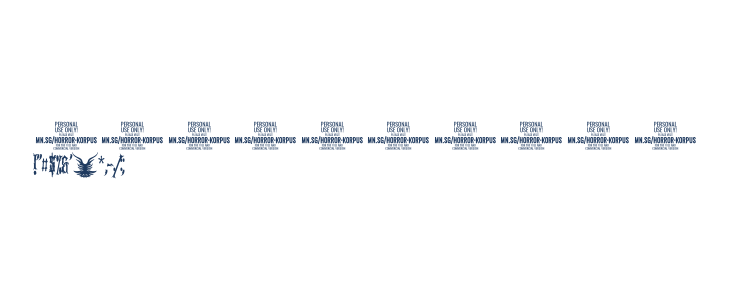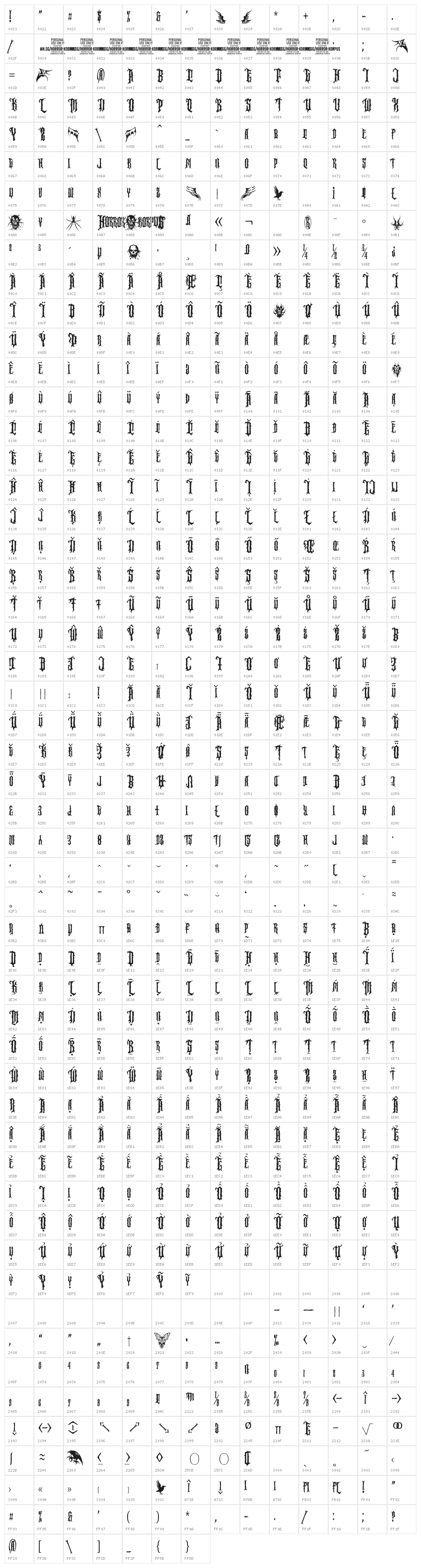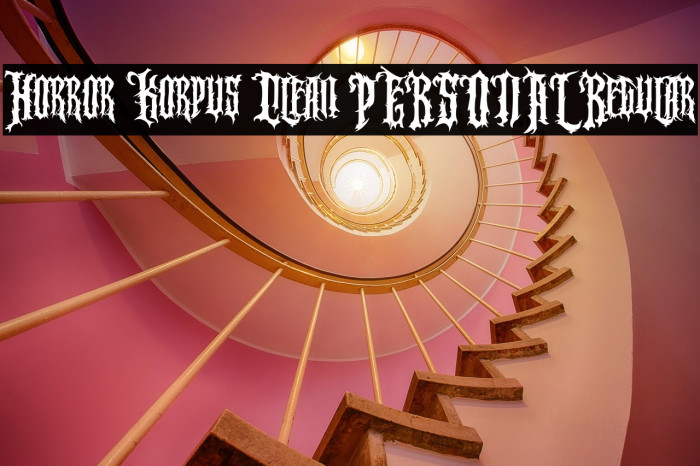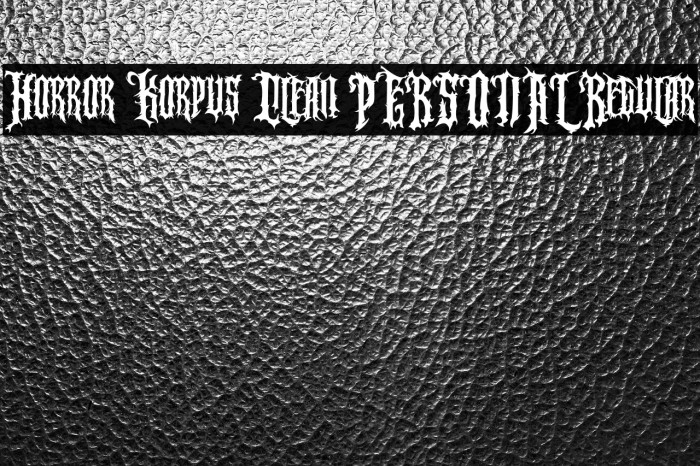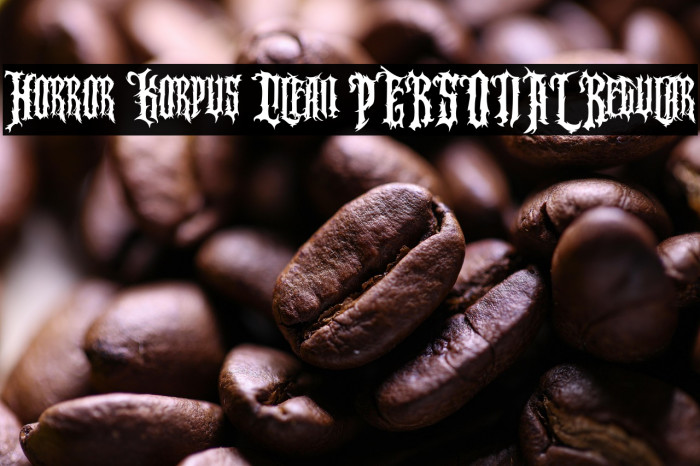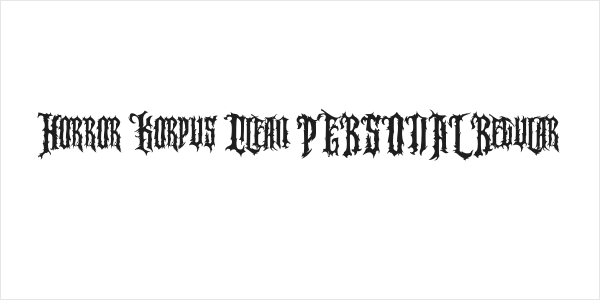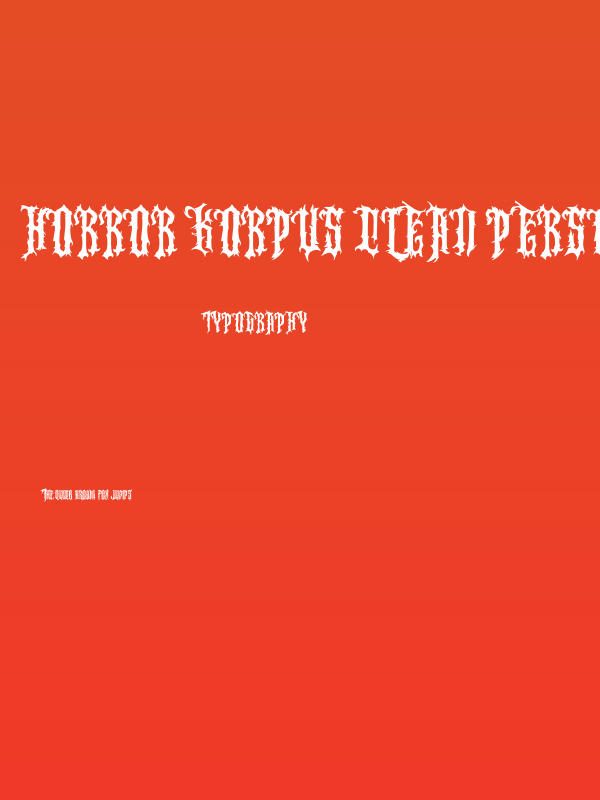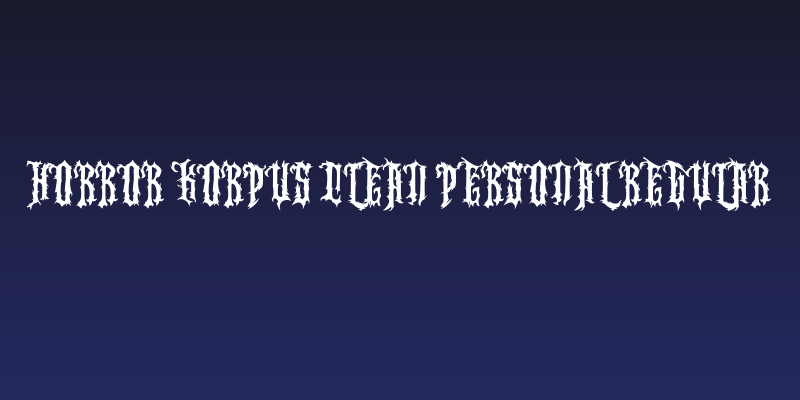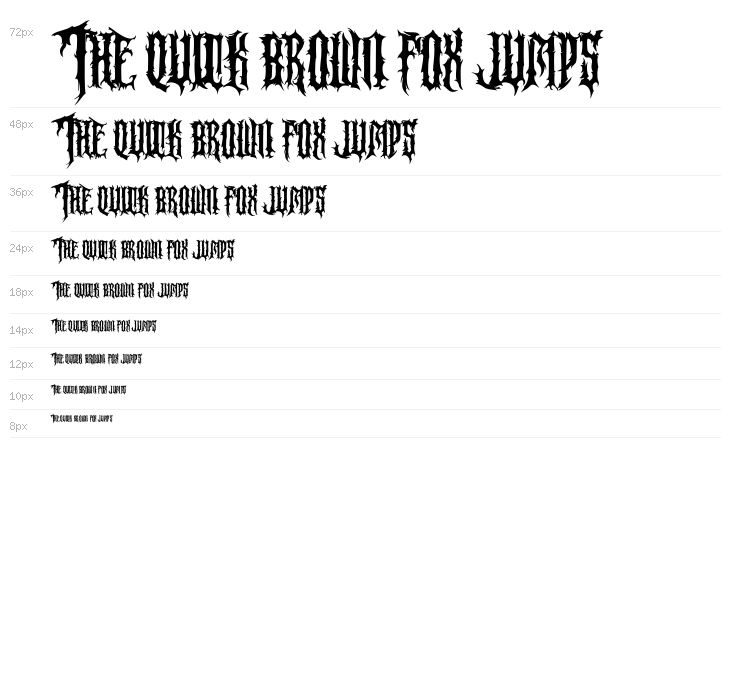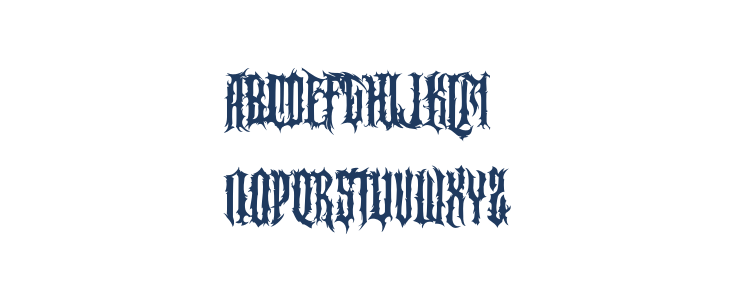
Horror Korpus Clean PERSONAL Regular Font
Horror Korpus Clean PERSONAL Regular Description
This font features a highly decorative and intricate design, reminiscent of gothic or horror themes. The characters are adorned with sharp, thorn-like extensions and irregular edges, creating a sense of unease and intensity. The uppercase and lowercase letters maintain a consistent style, with each character exhibiting unique embellishments that contribute to the overall eerie aesthetic. The numerals and special characters are equally ornate, ensuring a cohesive look across all glyphs. This font is ideal for projects that require a dramatic and bold visual impact, such as horror-themed posters, album covers, or Halloween event invitations.
| Overall Style | Gothic, Horror |
| Proposed Projects | Horror movie posters, Halloween event flyers, gothic-themed album covers, spooky merchandise designs. |